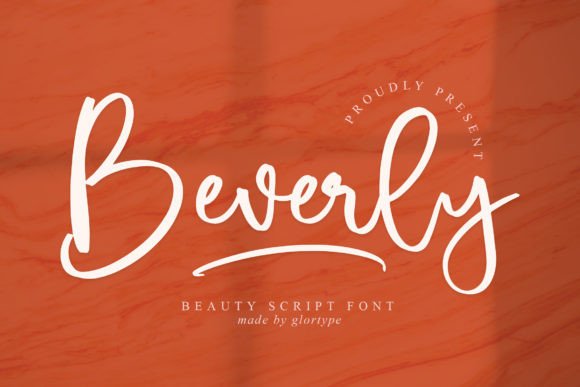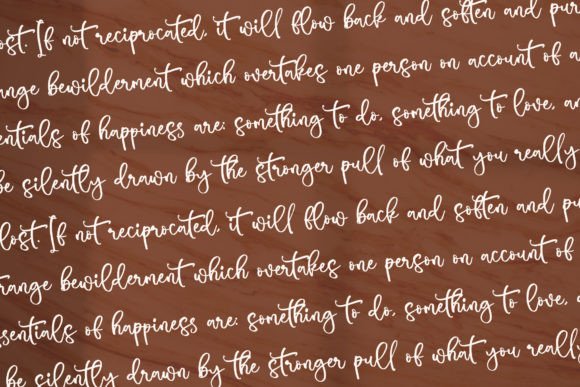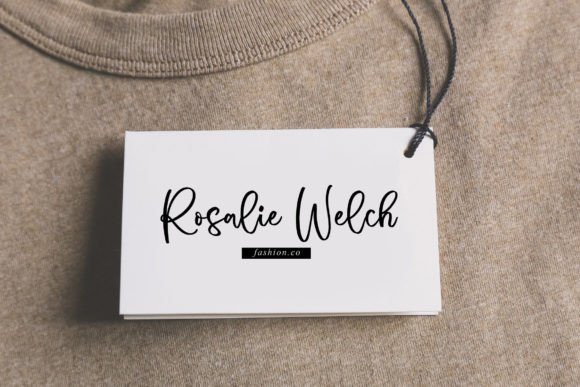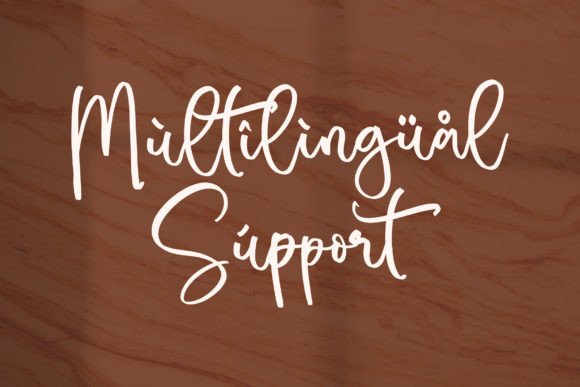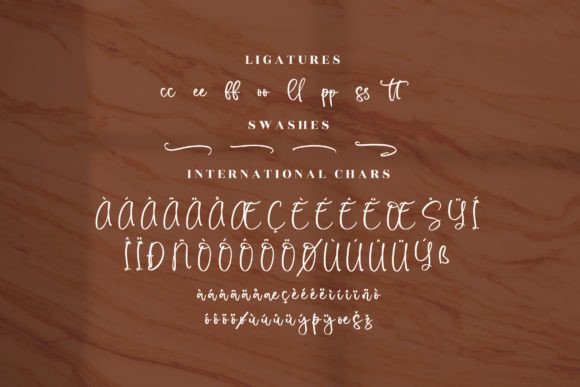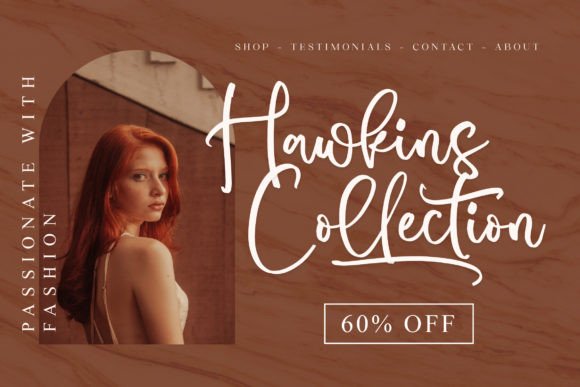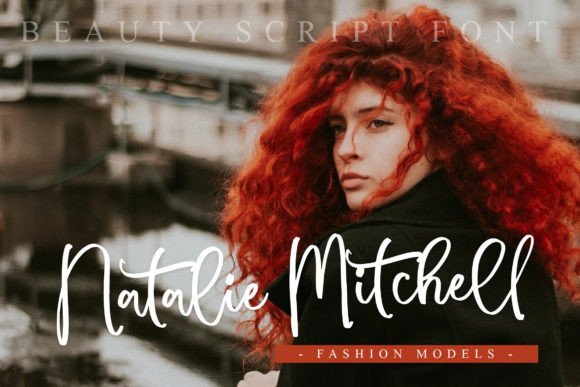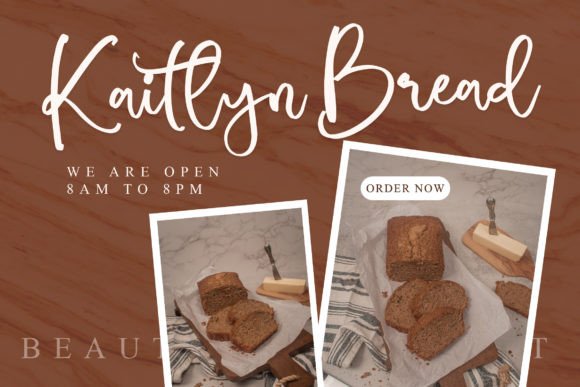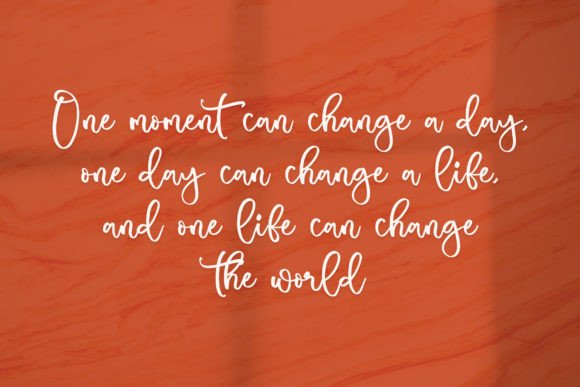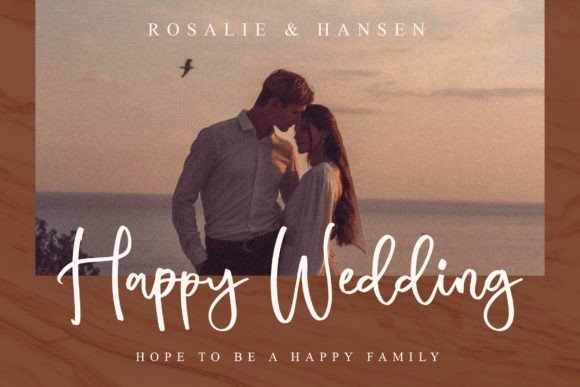
Beverly Font
About Beverly Font
Introducing Beverly, a beautiful handwritten font designed to add a touch of elegance and style to a variety of creative projects. With its graceful script, Beverly is well-suited for logos, branding, homeware designs, product packaging, and an array of other applications where a beautiful script is desired.
Beverly’s charm lies in its handcrafted and flowing style, which brings a sense of warmth and sophistication to your designs. Whether you’re working on mugs, quotes, posters, T-shirts, book covers, or name cards, Beverly adds a beautiful script taste, enhancing the overall visual appeal of your projects.
The versatility of Beverly extends to invitations, greeting cards, labels, and more, making it an ideal choice for special events and lovely projects. Picture Beverly on shopping bags, where it elevates the design with its elegant script. Envision it in watermarks or as a signature touch in your photography, adding a refined and personal element.
Beverly is crafted to make your projects stand out, infusing them with a timeless and beautiful script that adds a touch of sophistication. Whether in digital or print media, Beverly’s graceful design adapts seamlessly to various contexts, making it a valuable asset in your design toolkit.